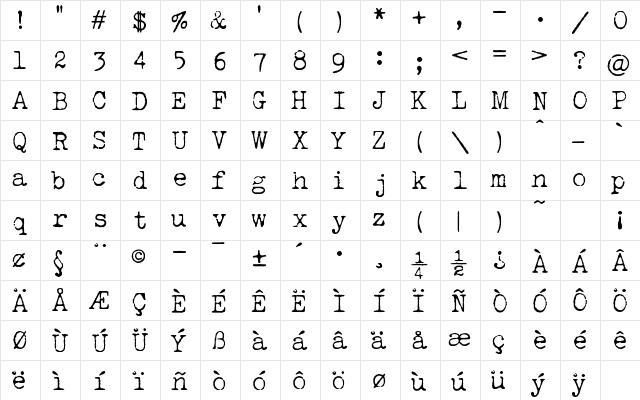
LUCKY TYPEWRITER Normal
| Foundry | Lukas Krakora |
| Designer | Lukas Krakora |
Design Context for LUCKY TYPEWRITER Typeface
LUCKY TYPEWRITER uses fixed-width spacing throughout, giving it the structured, systematic character associated with coding environments and technical documentation.
Pro Tip: Pair LUCKY TYPEWRITER with a proportional sans for UI contexts where code-style labels and regular body copy need to coexist.